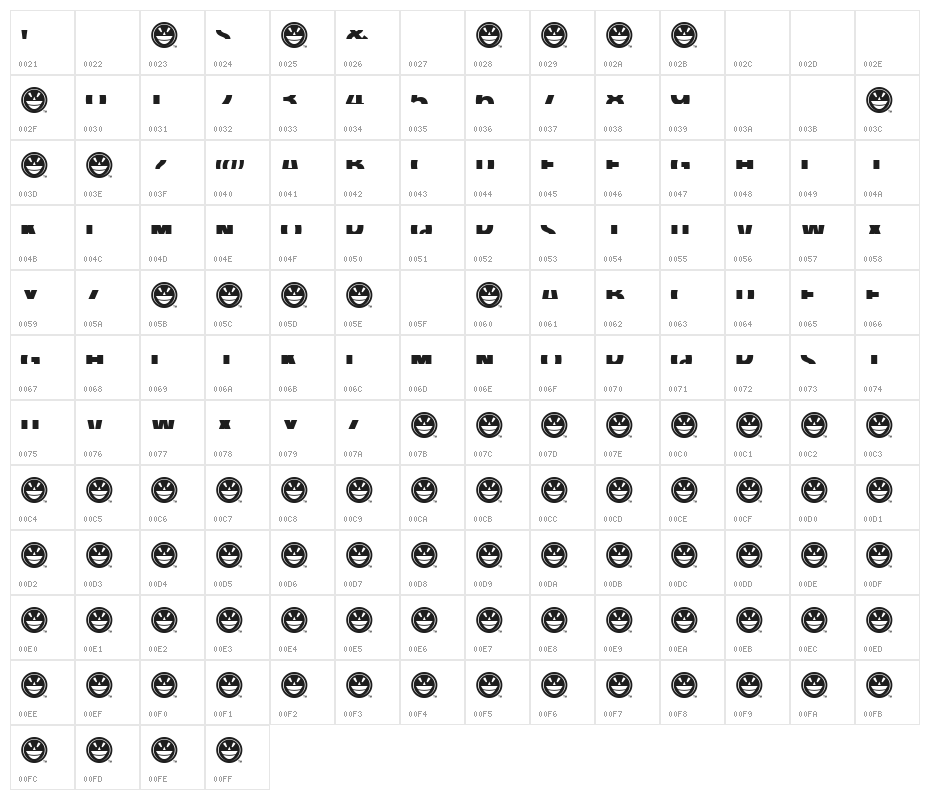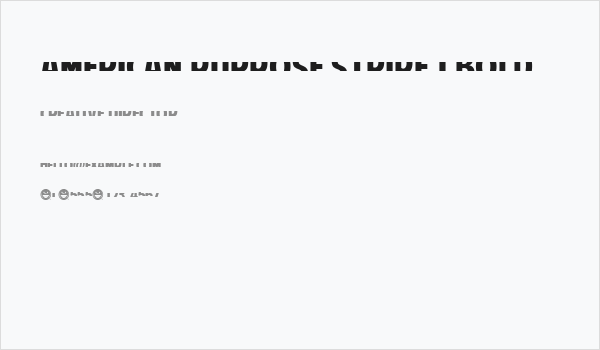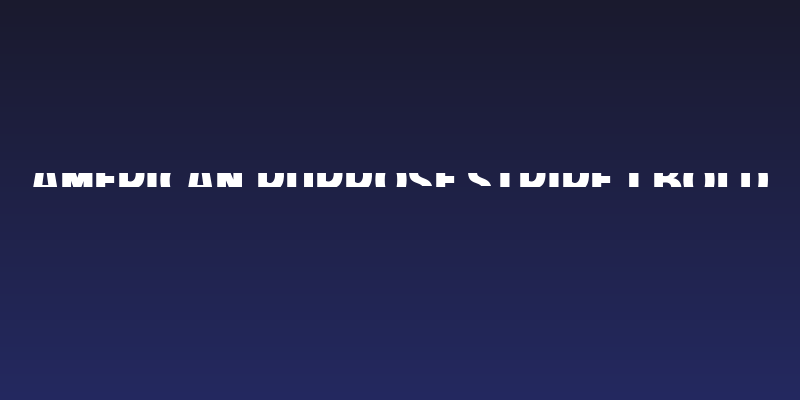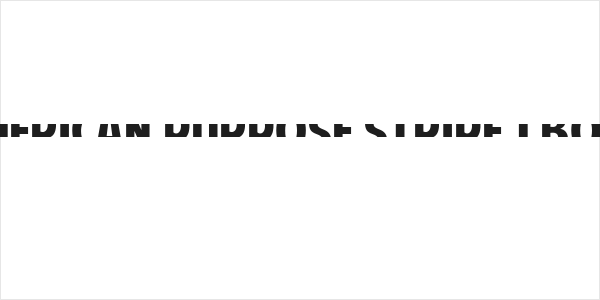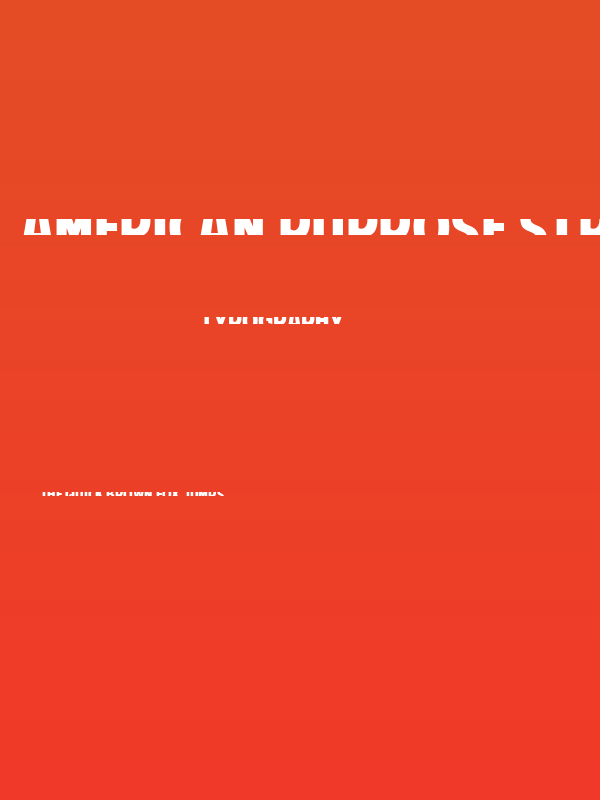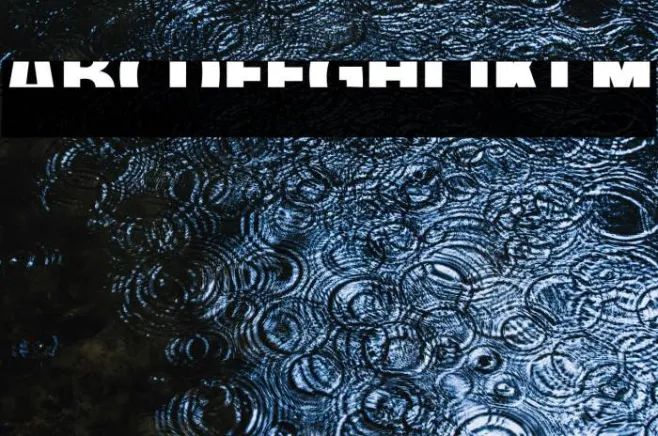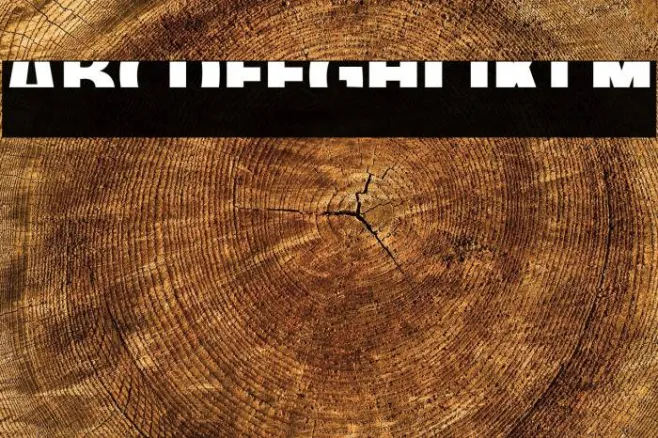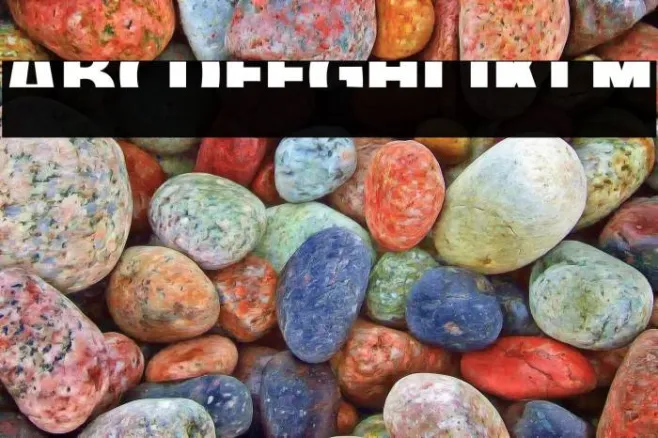
American Purpose STRIPE 1 Bold Font
American Purpose STRIPE 1 Bold Description
This bold and striking font features a unique design with a strong, impactful presence. The characters are constructed with thick, solid strokes that create a sense of power and authority. The uppercase letters are particularly bold, with a uniform height and width that contribute to a cohesive appearance. The lowercase letters maintain the same boldness, ensuring consistency throughout the typeface. The numbers are equally robust, making them stand out prominently. Special characters are designed with the same attention to detail, ensuring they blend seamlessly with the rest of the font. This font is ideal for projects that require a strong visual impact, such as branding, advertising, and headlines.
| Proposed Projects | Ideal for branding, advertising, and headlines where a strong visual impact is needed. |